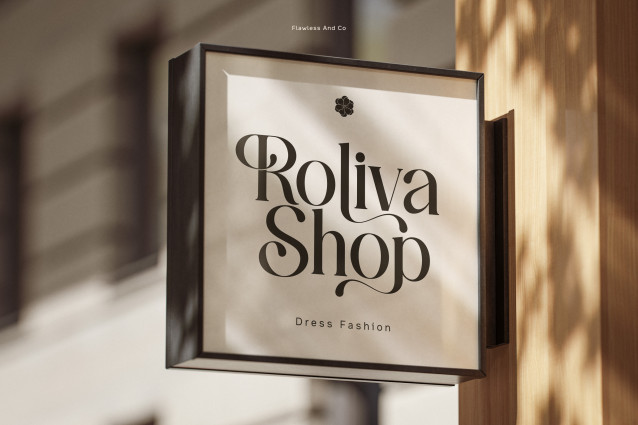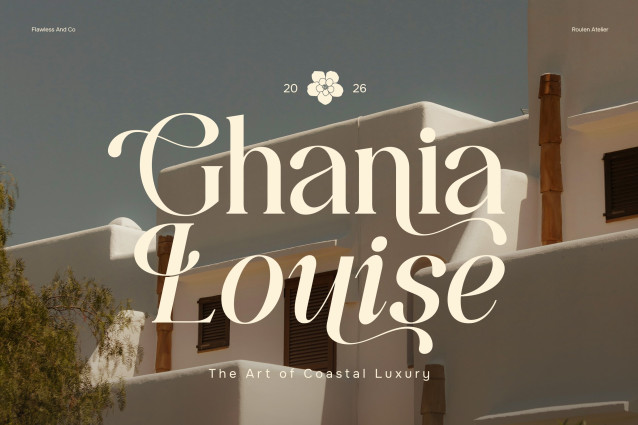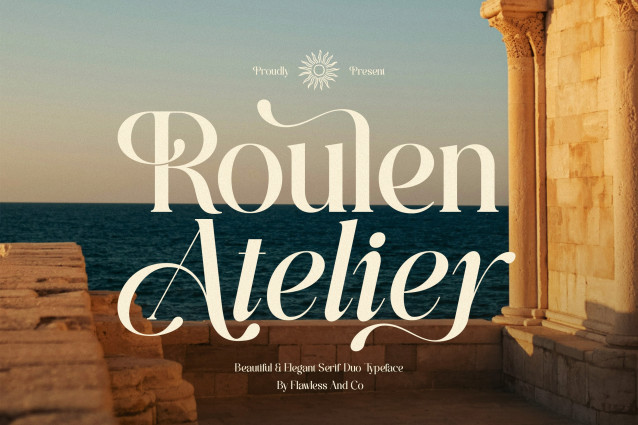
Roulen Atelier – Elegant Serif Font
Roulen Atelier is an elegant duo serif font featuring Regular and Italic styles designed to work together across refined display typography. The Regular style provides structured and balanced letterforms, while the Italic style introduces a more fluid and expressive appearance for emphasis and decorative compositions.
The combination of two complementary styles gives Roulen Atelier flexibility for creating typographic hierarchy within a single design. The Regular style works well for headings, brand names, and supporting text, while the Italic style can be used for highlights, secondary wording, and elegant accents.